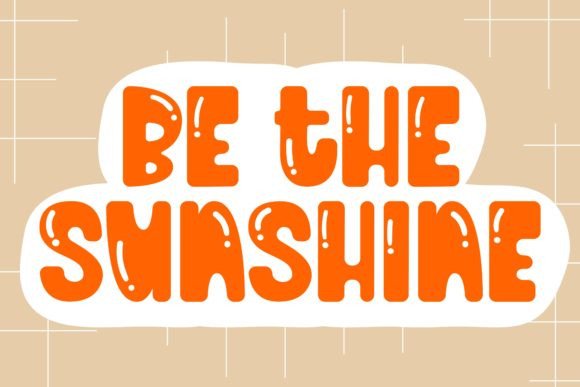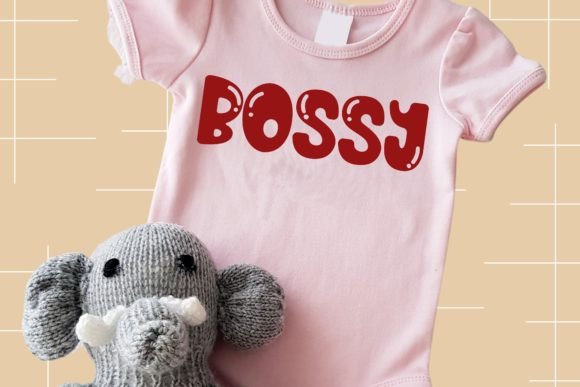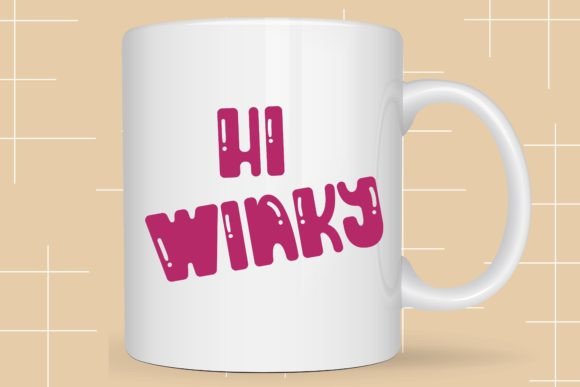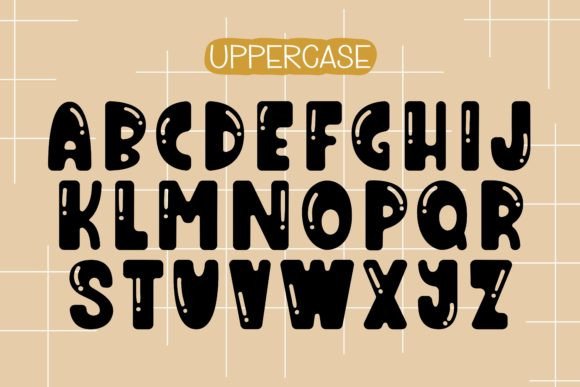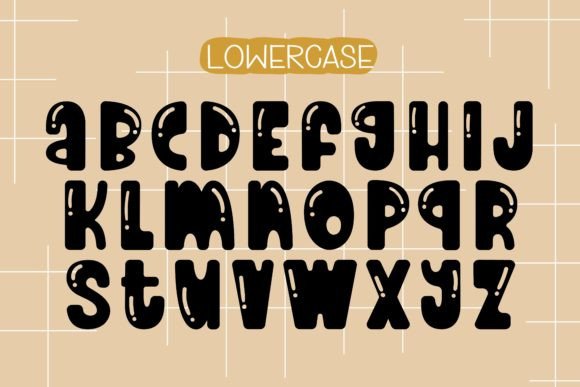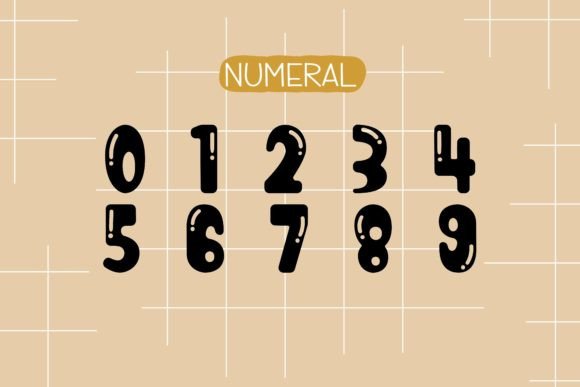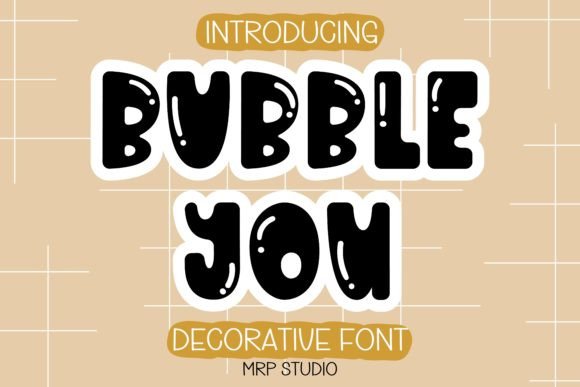
Bubble You Font: Add a Cute and Playful Touch to Your Designs
Are you looking for a font that can add a playful and adorable touch to your designs? Look no further than the Bubble You Font! This cute and decorative font style is perfect for a variety of projects, from child-related designs to any topic that needs a bright and fun twist.
What is Bubble You Font?
Bubble You Font is a unique and creative font style that is designed to bring a smile to your face. Its cute and adorable design makes it perfect for a wide range of projects, including back to school designs, birthday party decorations, and more.
Features of Bubble You Font
- Cute and Adorable Design: The Bubble You Font features a playful and charming design that is sure to capture the attention of your audience.
- Decorative Font Style: This font style is perfect for adding a touch of elegance and sophistication to your designs.
- Perfect for Child-Related Projects: The Bubble You Font is ideal for designs related to children, such as back to school designs, birthday party decorations, and more.
- Bright and Fun Touch: This font style adds a bright and fun touch to any design, making it perfect for a wide range of projects.
Uses of Bubble You Font
The Bubble You Font can be used for a variety of projects, including:
- Back to School Designs: Add a playful touch to your back to school designs with the Bubble You Font.
- Birthday Party Decorations: Use this font style to create fun and colorful birthday party decorations.
- Child-Related Projects: The Bubble You Font is perfect for any project related to children, such as children’s book illustrations, kids’ party invitations, and more.
- Any Project that Needs a Bright and Fun Touch: This font style can be used for any project that needs a playful and fun touch, such as posters, flyers, and more.
Why Choose Bubble You Font?
There are many reasons why you should choose the Bubble You Font for your designs. Here are a few:
- Unique and Creative Design: The Bubble You Font features a unique and creative design that will set your designs apart from the rest.
- Perfect for Designers and Crafters: The Bubble You Font is perfect for designers and crafters who want to add a playful touch to their designs.
The Bubble You Font is a unique and creative font style that is perfect for adding a playful and adorable touch to your designs. With its cute and decorative design, this font style is ideal for a wide range of projects, from child-related designs to any topic that needs a bright and fun twist. So why wait? Try the Bubble You Font today and see how it can make your designs stand out!